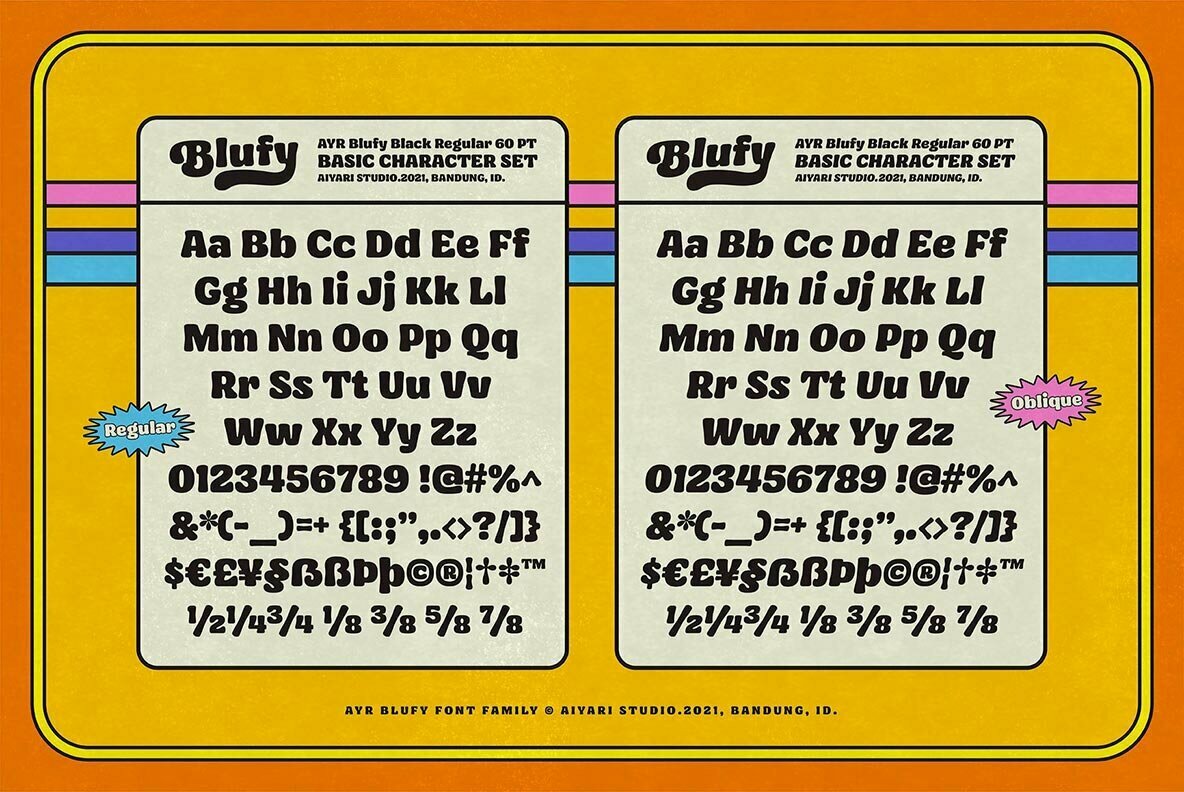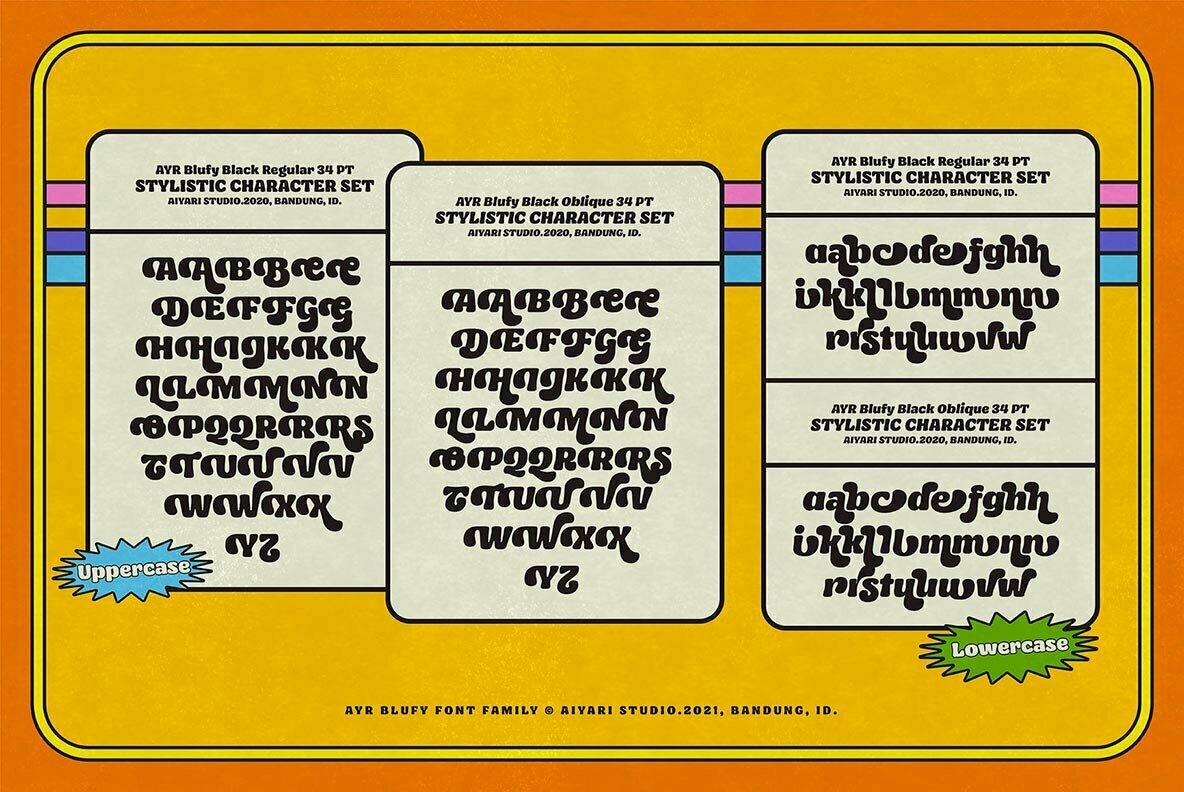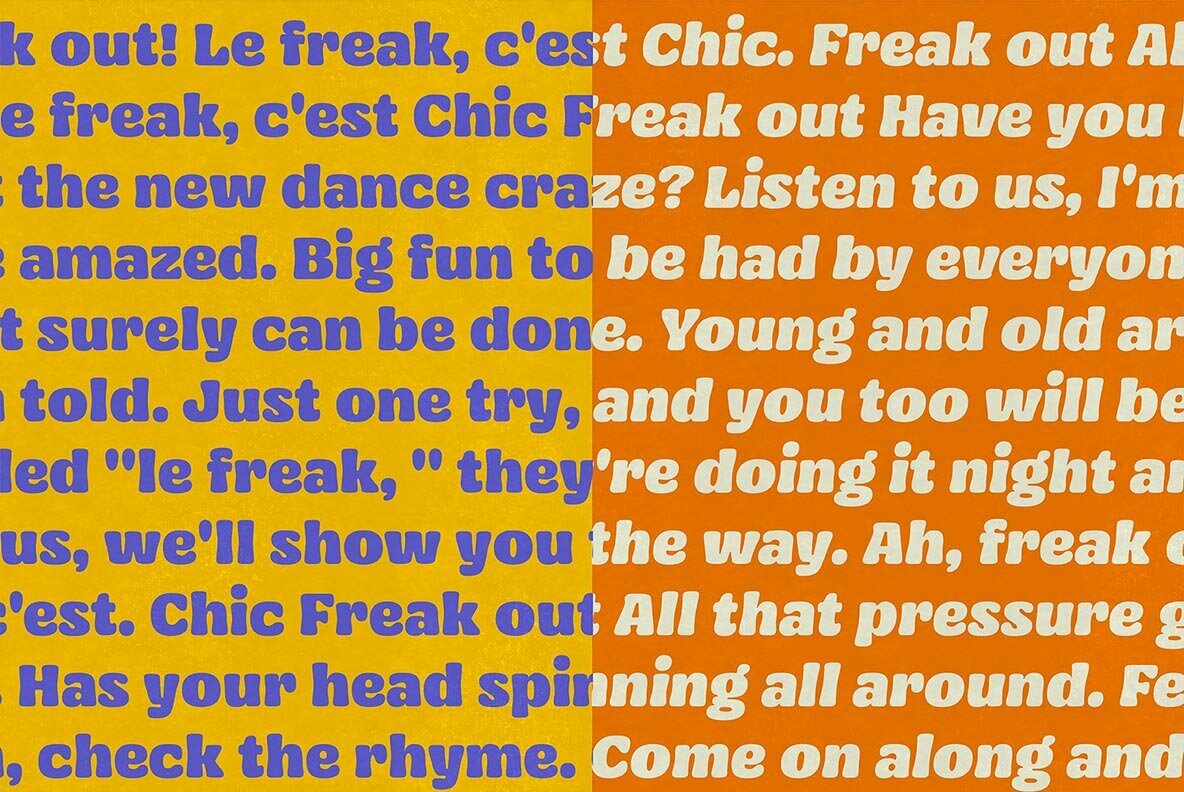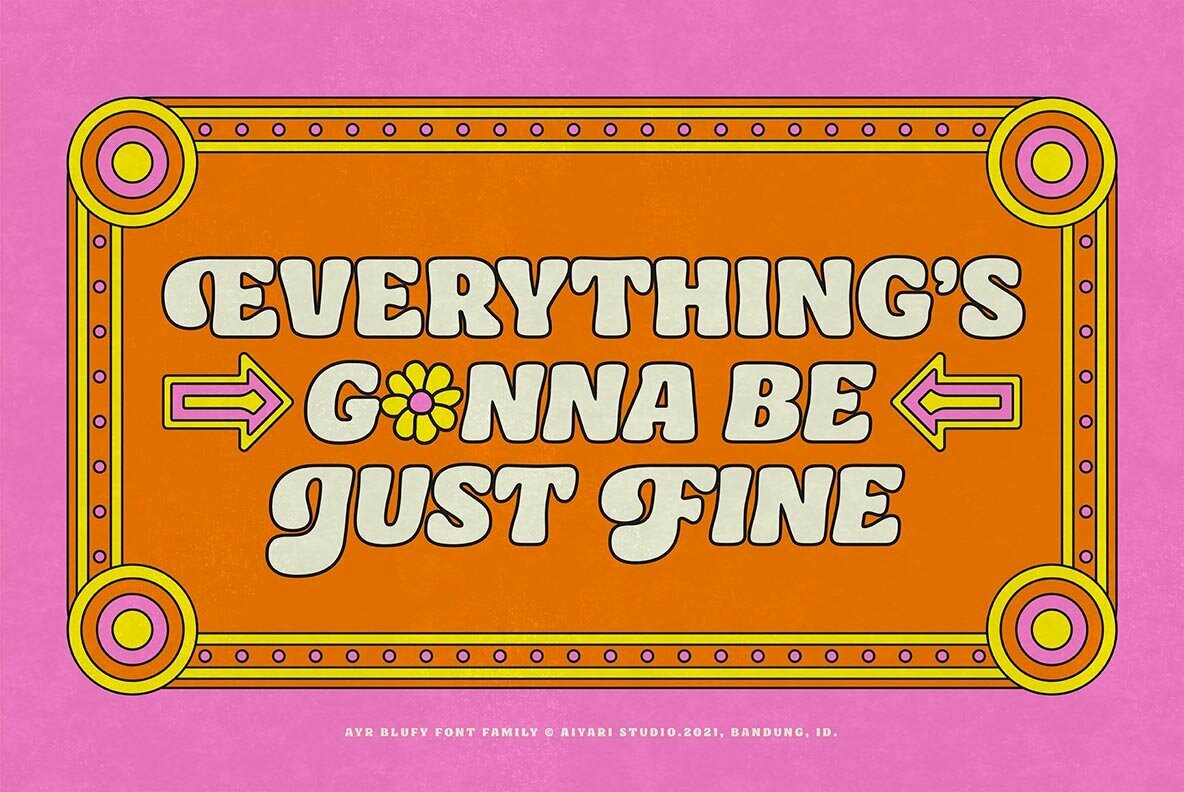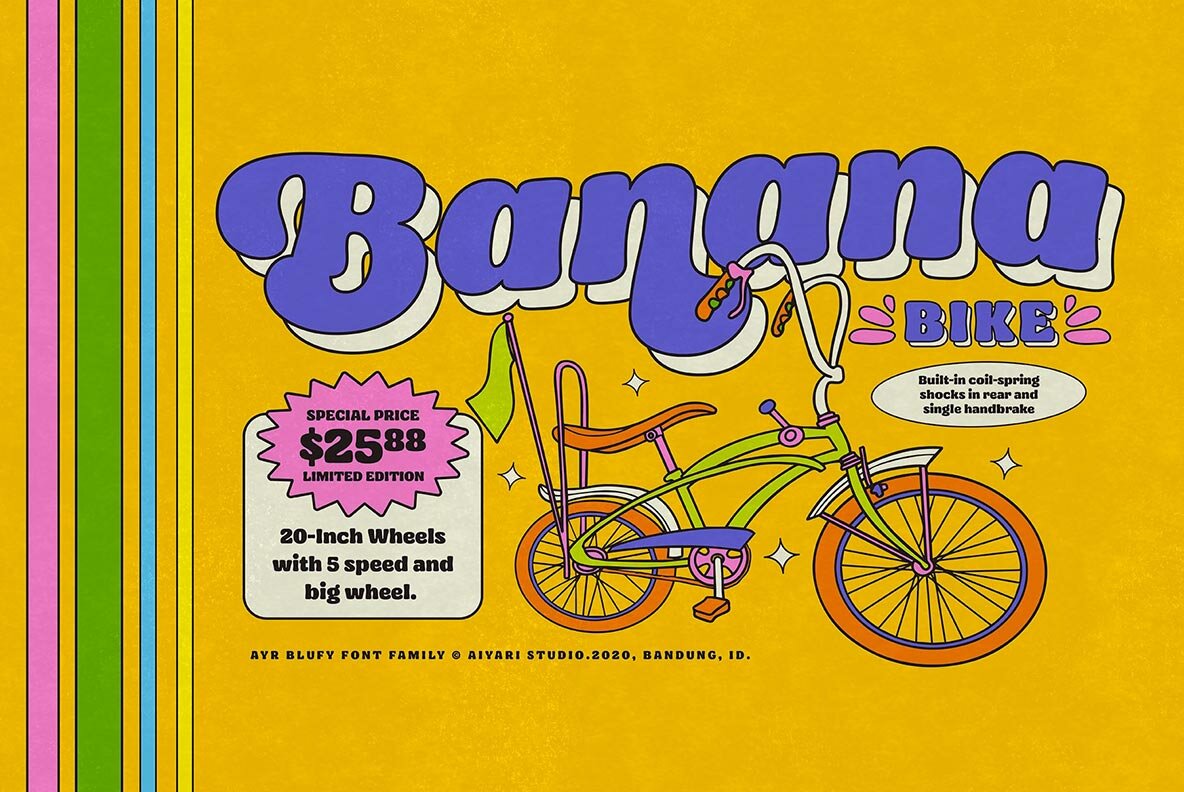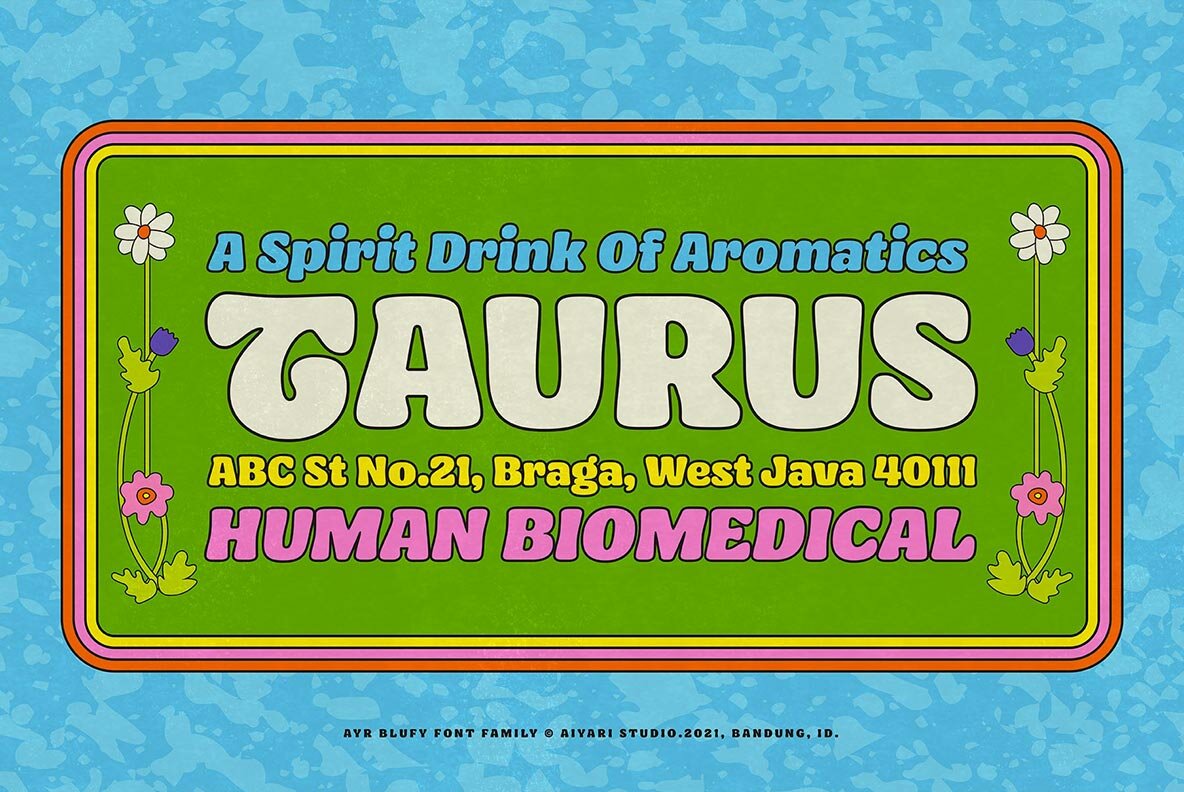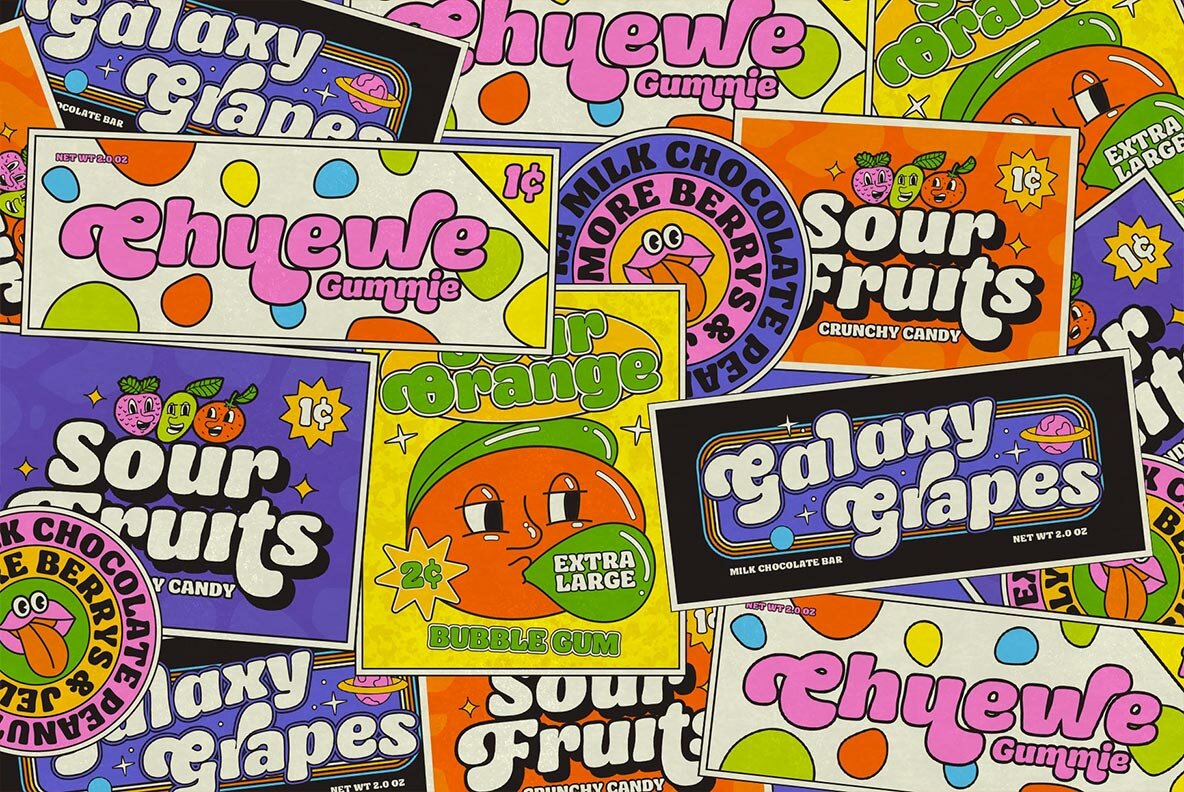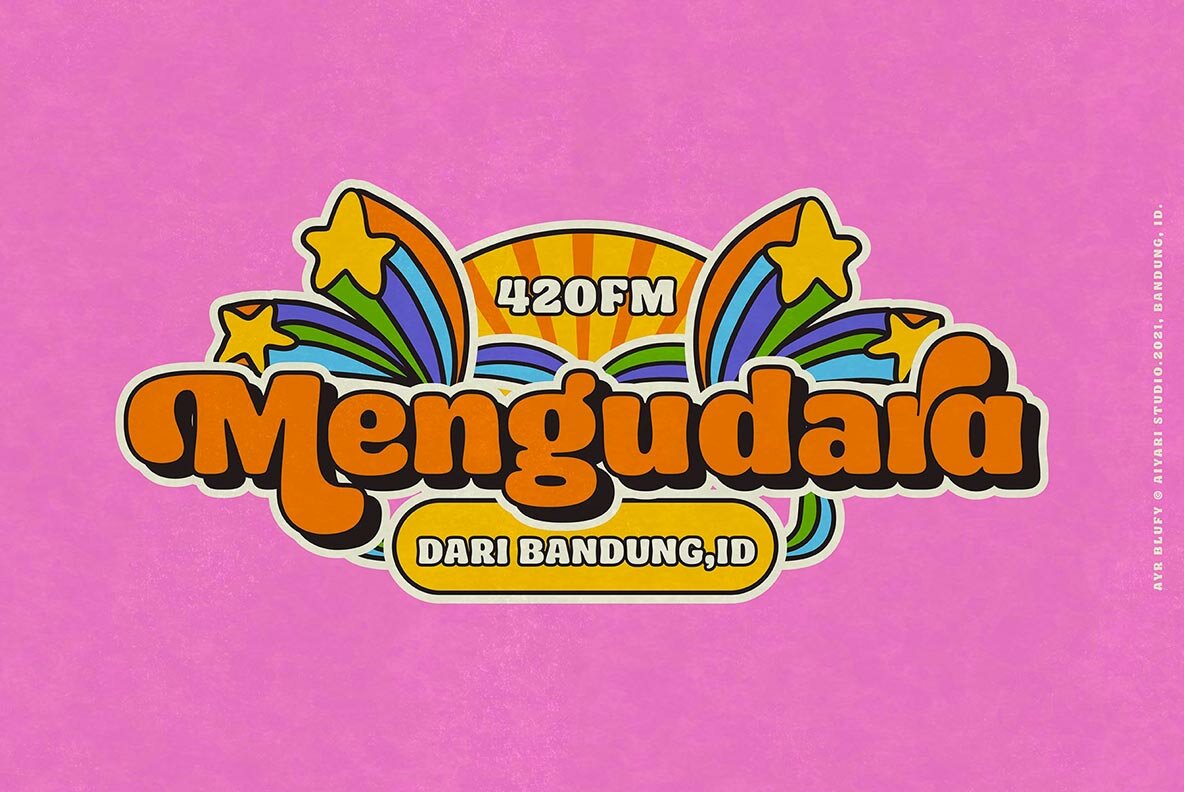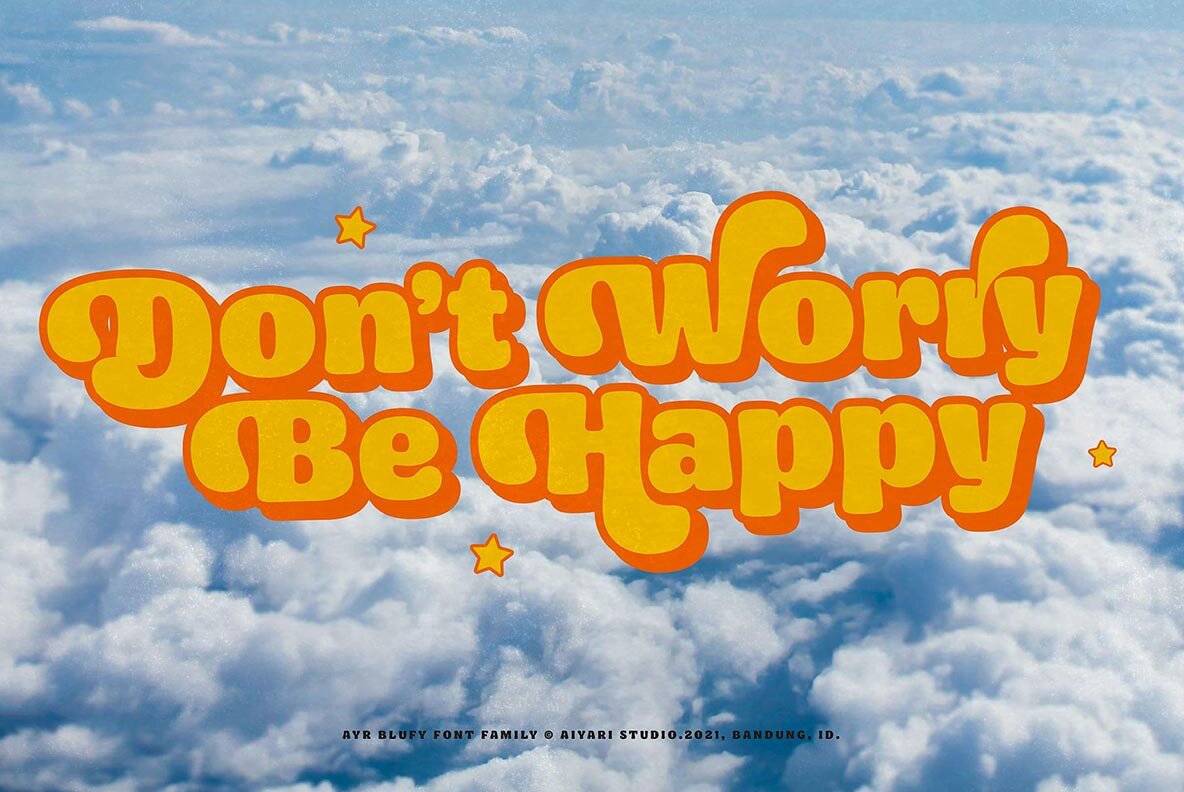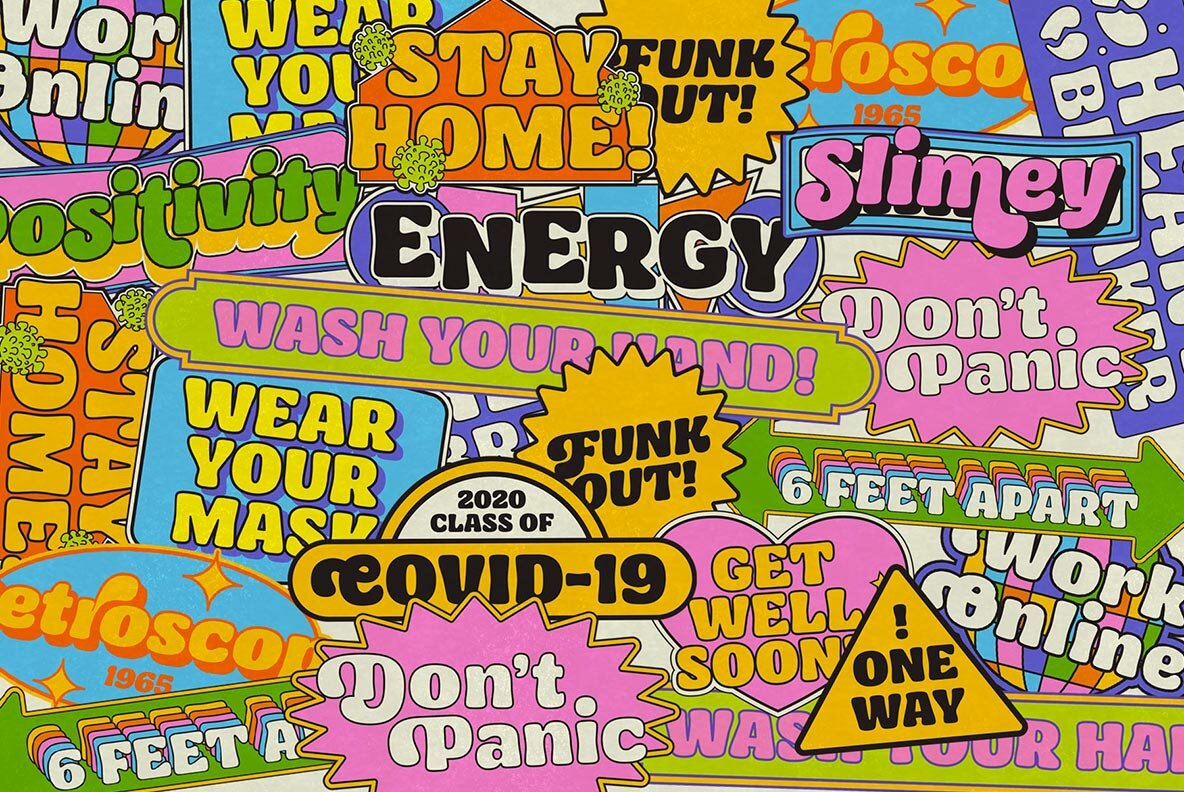
Blufy Font
Inspired by the whimsical charm of 1960s and 70s balloon hand lettering and the iconic Cooper Black typeface, Blufy offers a delightful journey back in time. This soft and stylistic retro font family, available in both regular and oblique styles, embodies the groovy aesthetics of a bygone era. Blufy is perfectly suited for a variety of applications, from dynamic headings and unique logotypes to captivating quotes and imaginative apparel designs. It excels in invitation designs, posters, flyers, greeting cards, packaging, book covers, printed quotes, albums, and movie graphics.Blufy: A Nostalgic Retro Font Family